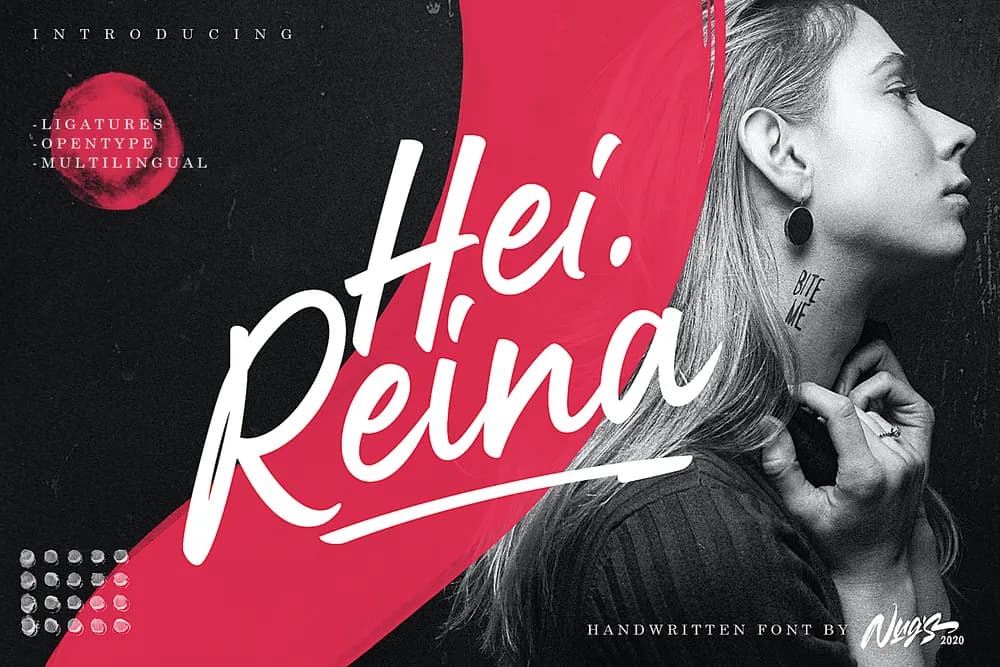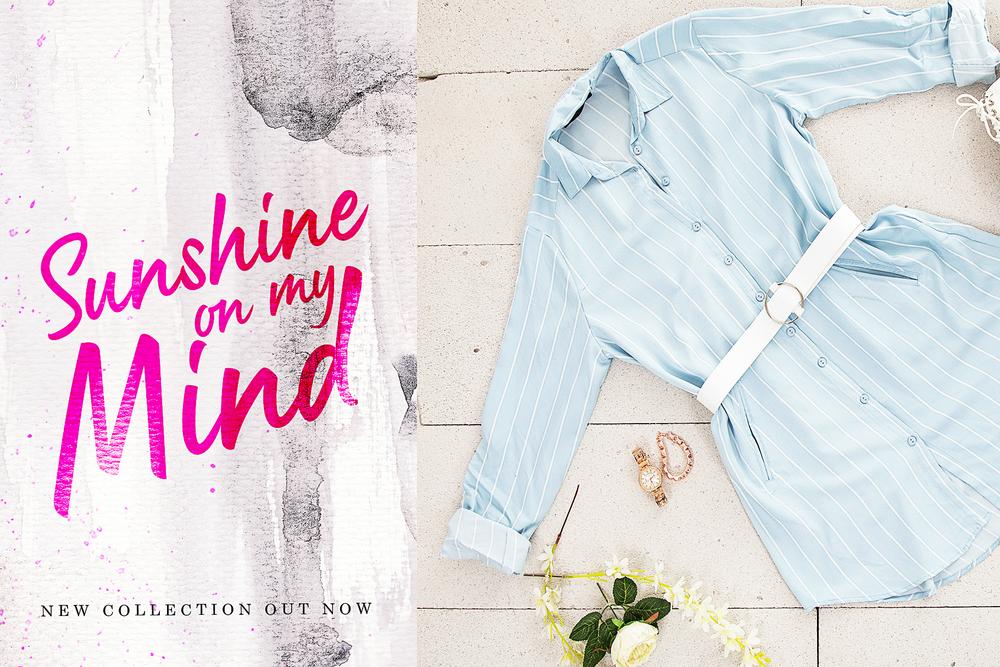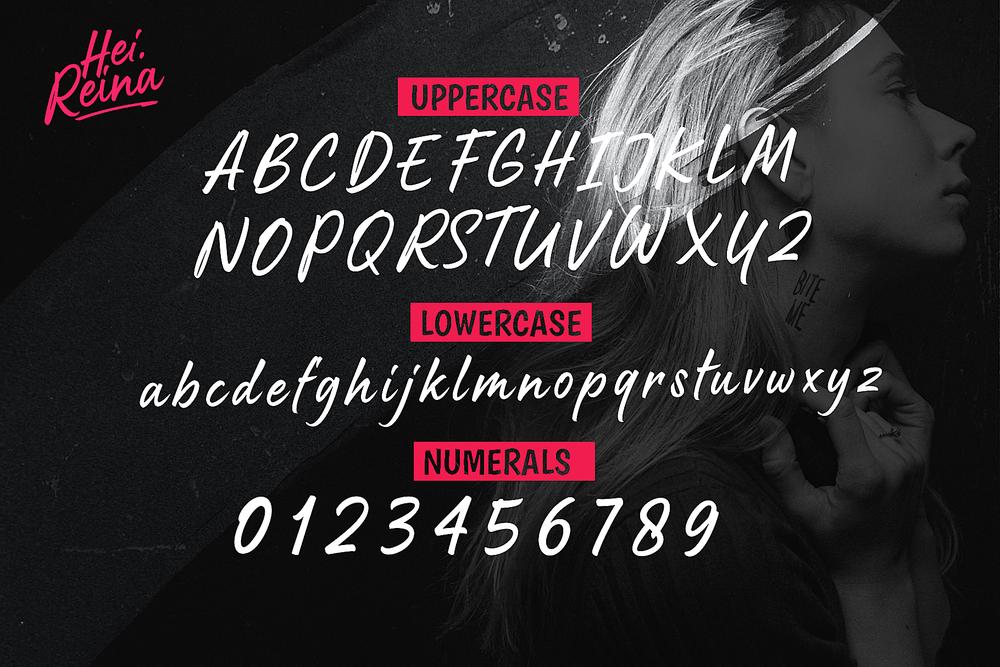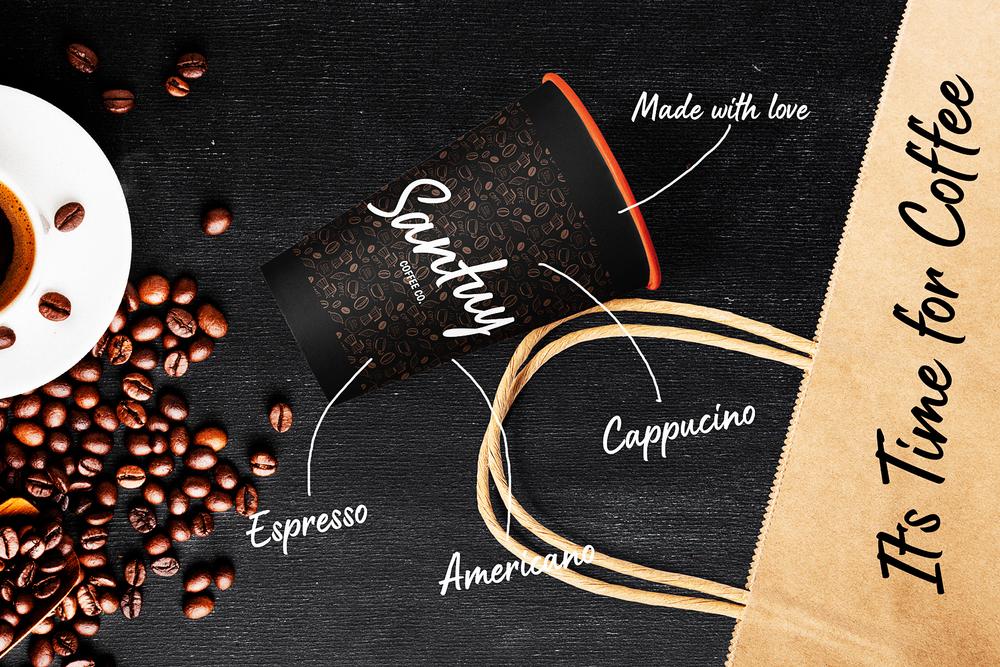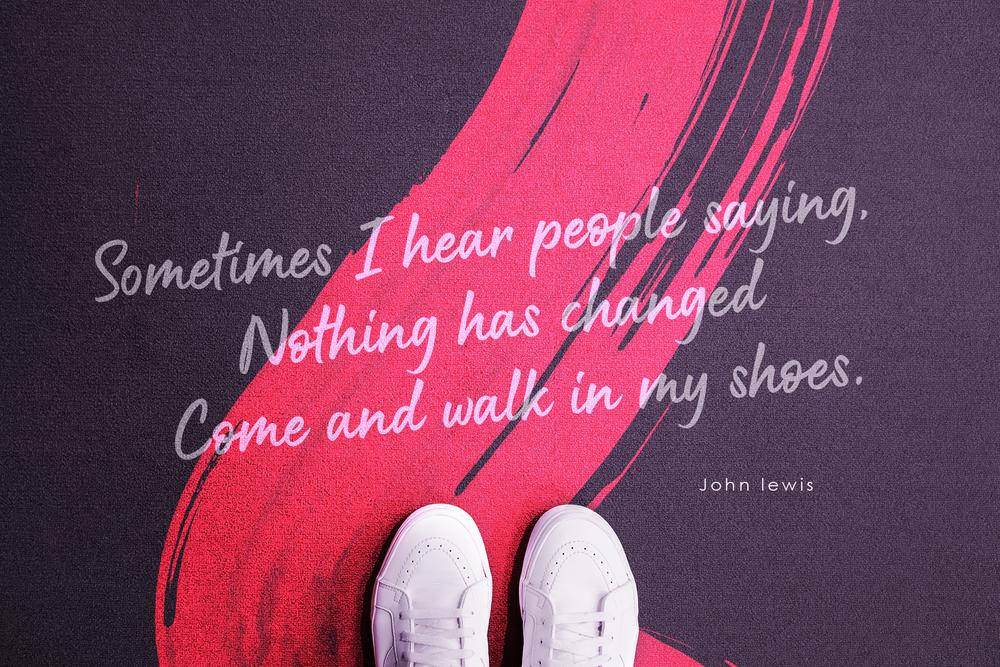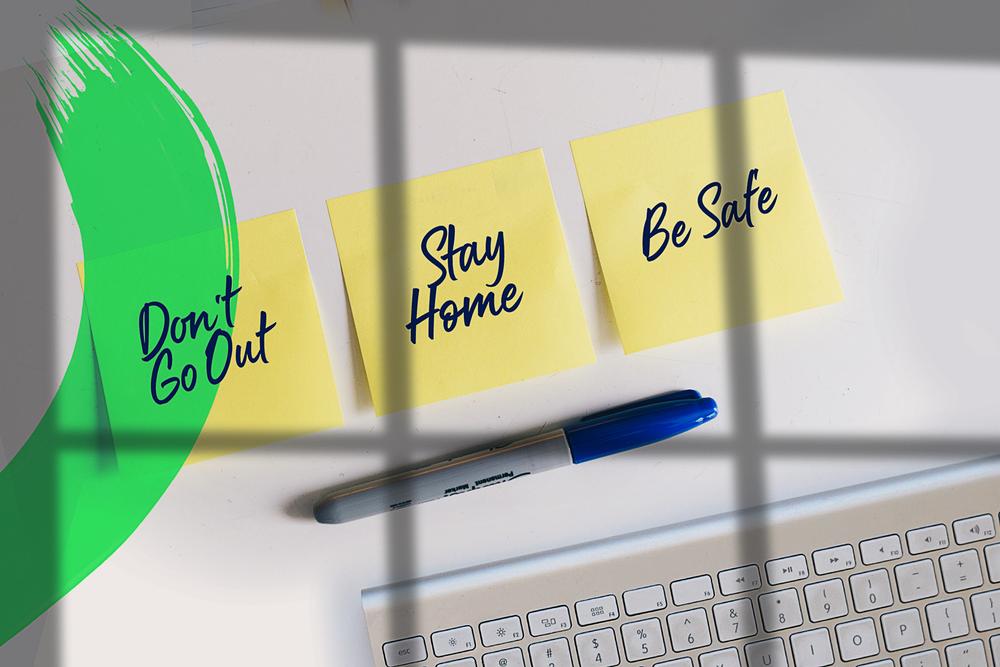
Hei Reina is a beautiful handwritten typeface which will give your design a handmade feeling It’s perfect for headings, logos, invitations, t-shirt designs, greeting cards, posters, labels, book covers, brochures and much more! What you get: HeiReina OTF HeiReina TTF WOFF